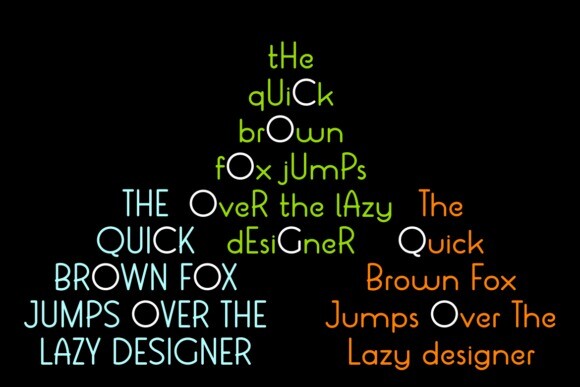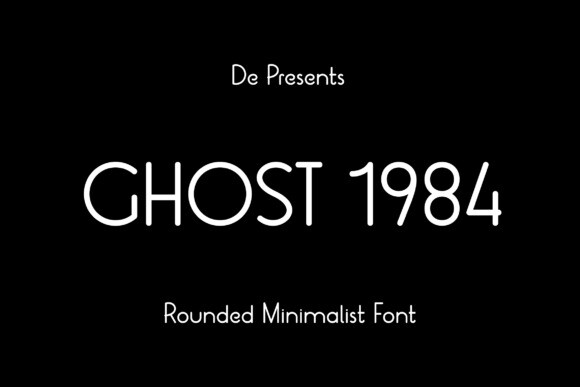
Ghost 1984 Font
Ghost 1984 Font a font that effortlessly blends simplicity with aesthetics. Its lightweight design is perfect for delivering a clear-cut message without compromising style. Versatile in use, GHOST 1984 elegantly fits into product packages, gift descriptions, or even in food advertisements, be it for biscuits or milk. Above all, it shines in readability, effectively capturing the viewer’s attention and simplifying content comprehension for your audience. Experience the finesse of GHOST 1984 and elevate your creativity to a new level.